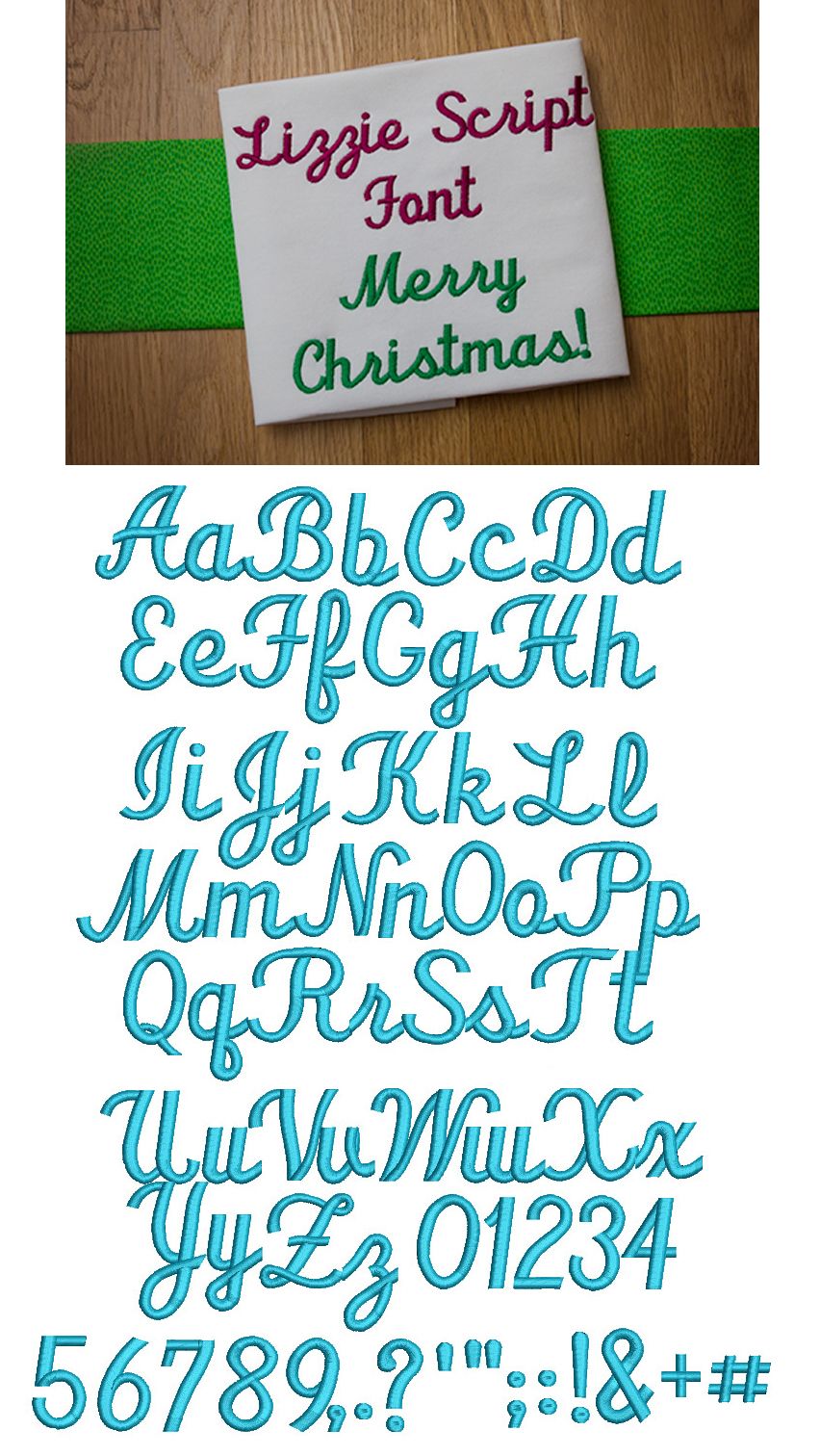
This is a lovely, simple and bold script font that "connects" well! We've had countless requests for this font over the past year and are pleased to finally bring it to you. Ā All of our fonts are 100% manually digitized to ensure the highest quality.